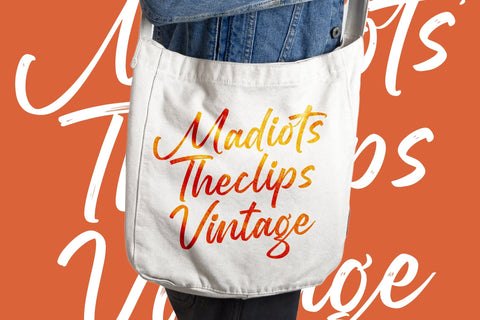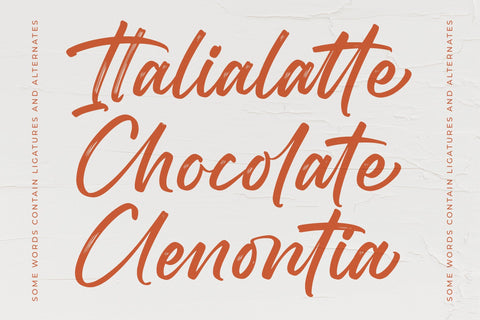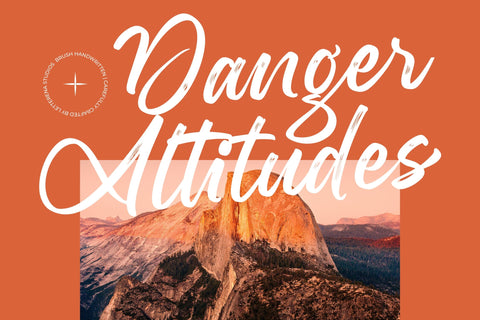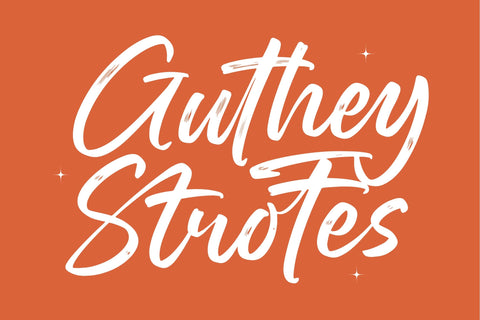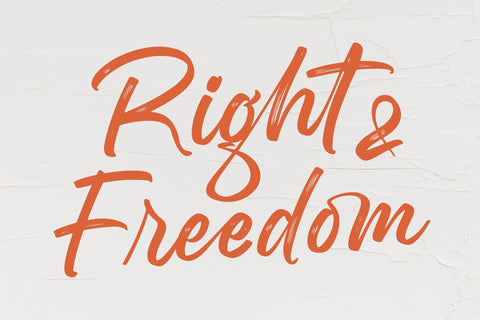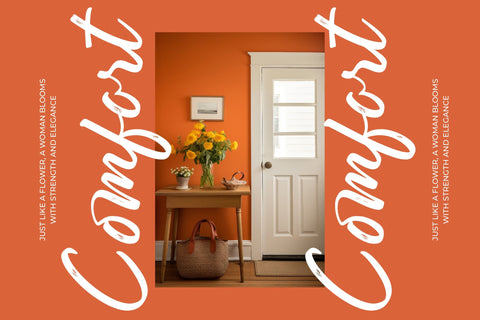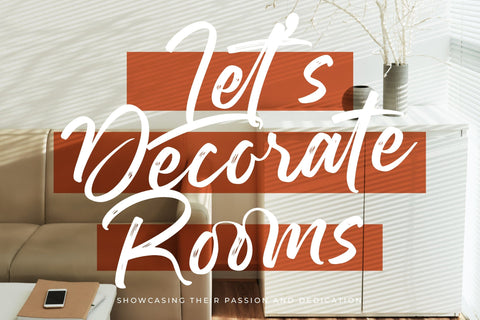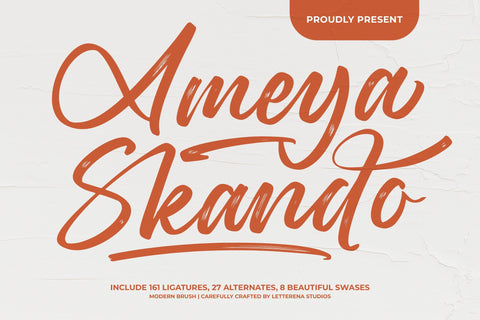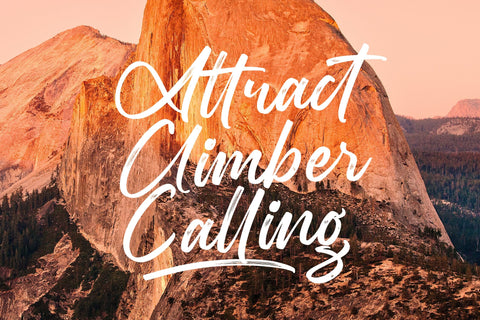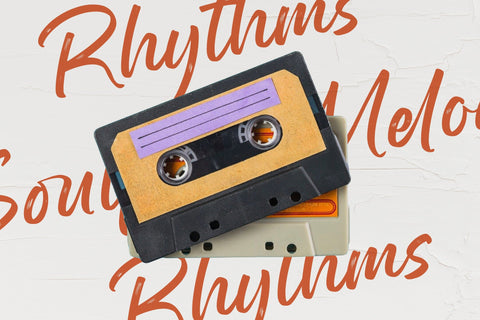
Ameya Skando - Modern Brush Font
Ameya Skando - Modern Brush Font , from Letterena, is a Luxury Script font, suitable for any projects such as: logos, branding projects, homeware designs, product packaging, mugs, quotes, posters, shopping bags, t-shirts, book covers, name card, invitation cards, greeting cards, label, photography, watermark, special events, and all your other luxury and beautiful projects that need a Luxury Script taste.
Ligature 161 Alternate 27 & 8 Swashes